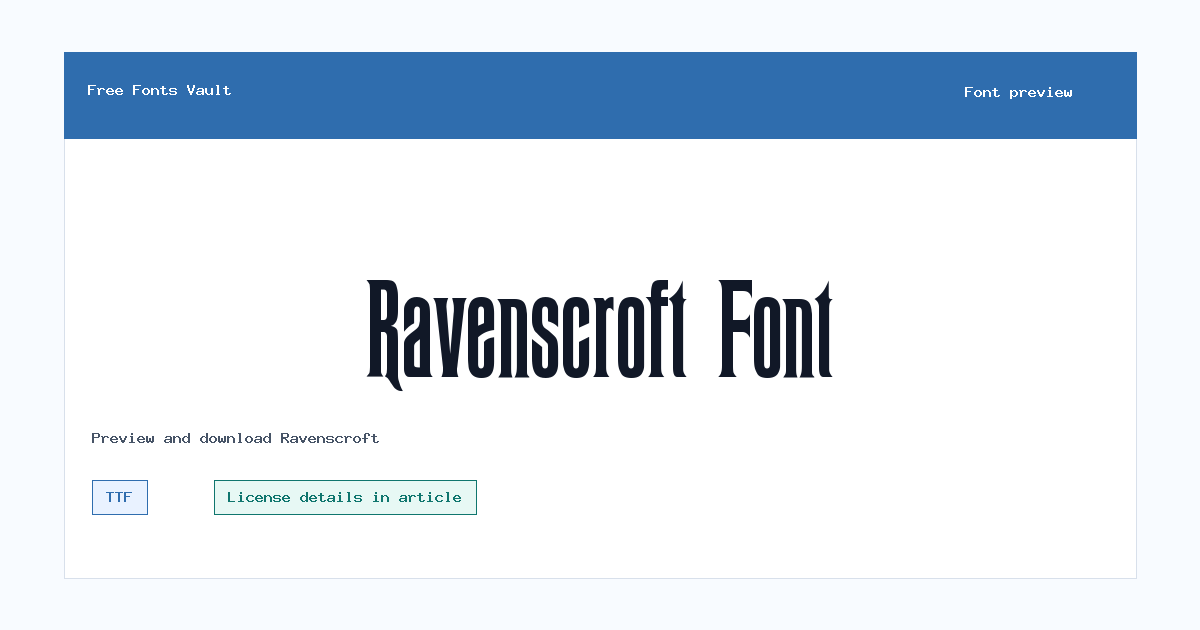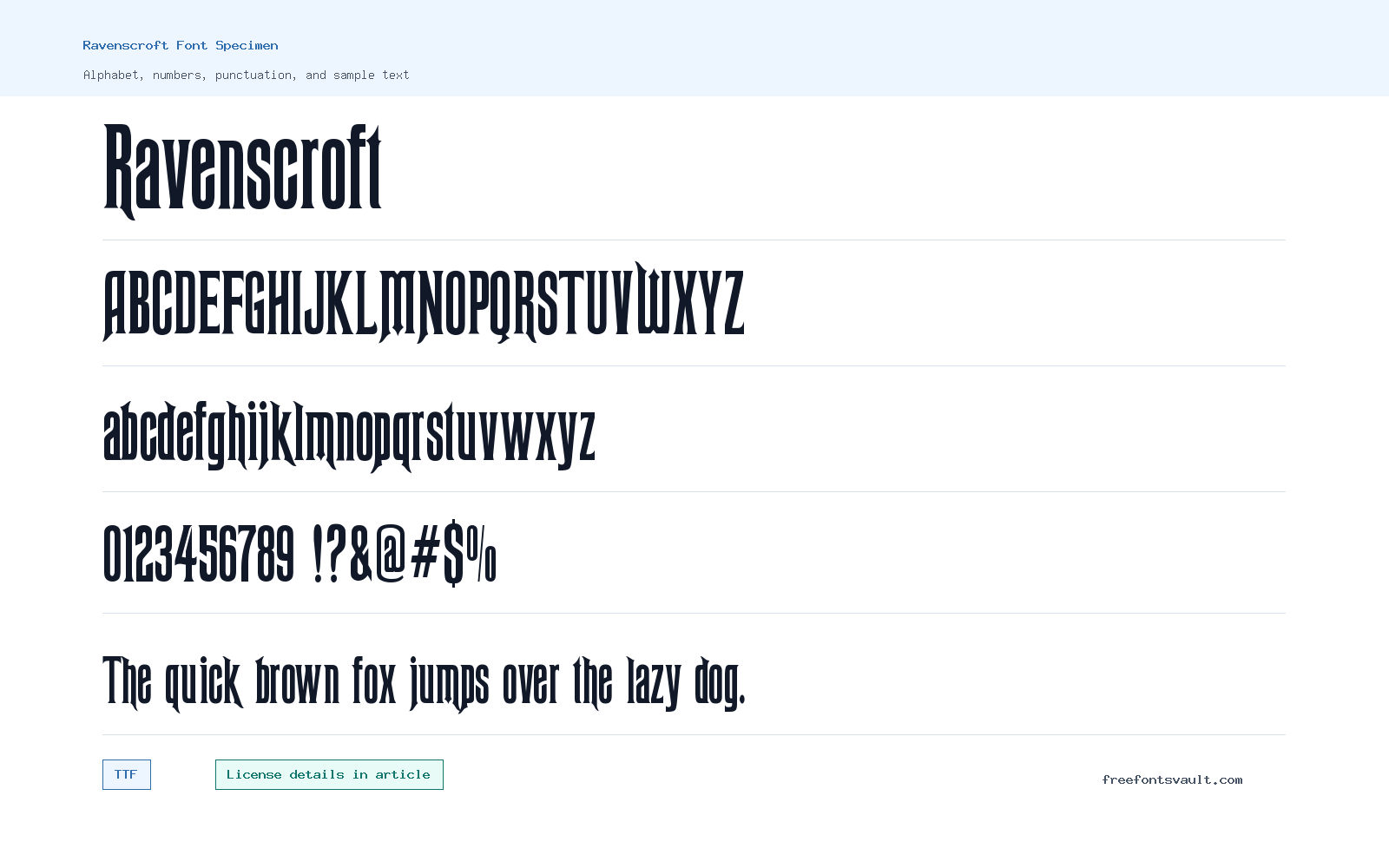
Ravenscroft
Ravenscroft font preview showing the family name
Ravenscroft Font
Ravenscroft font specimen showing alphabet, numbers, and sample text
• Designer TombSweetTomb.com
Ravenscroft font.
Ravenscroft is a display-style font with a strong personality, best used when a design needs a bold title or decorative text rather than long reading copy.
About Ravenscroft Font
Ravenscroft works best when the typography is meant to set a mood immediately. Treat it as a title face for dark, dramatic, vintage, fantasy, gothic, or theatrical design ideas, then check the preview with your actual wording. If a word becomes hard to read, try adding space between letters or switching the supporting text to a calmer font.
For practical layouts, keep Ravenscroft away from dense paragraphs and small labels. Use it where the viewer has time to read a short phrase: a poster title, book-style heading, product label mockup, game title, event graphic, or dramatic social image. The font can provide atmosphere, while a simple sans serif or serif handles the information around it.
• Display-friendly choice for short, prominent text
• Posters, covers, and title graphics
• Themed headings, labels, and social media artwork
Ravenscroft is credited to TombSweetTomb.com.
Use Ravenscroft at larger sizes and keep text short. Test spacing in the preview, then pair it with a plain companion font for descriptions, captions, or longer paragraphs. Preview Ravenscroft in the final color combination before downloading. Dramatic display fonts can become heavy on dark backgrounds, so test contrast, line height, and spacing at the same size you plan to use. If a design needs several lines of text, use Ravenscroft only for the first line and move the rest into a quieter companion typeface.
Is Ravenscroft good for body text?
It is better for display use, such as headings and title graphics. For long paragraphs, use a cleaner reading font.
Who designed Ravenscroft?
The font is credited to TombSweetTomb.com.